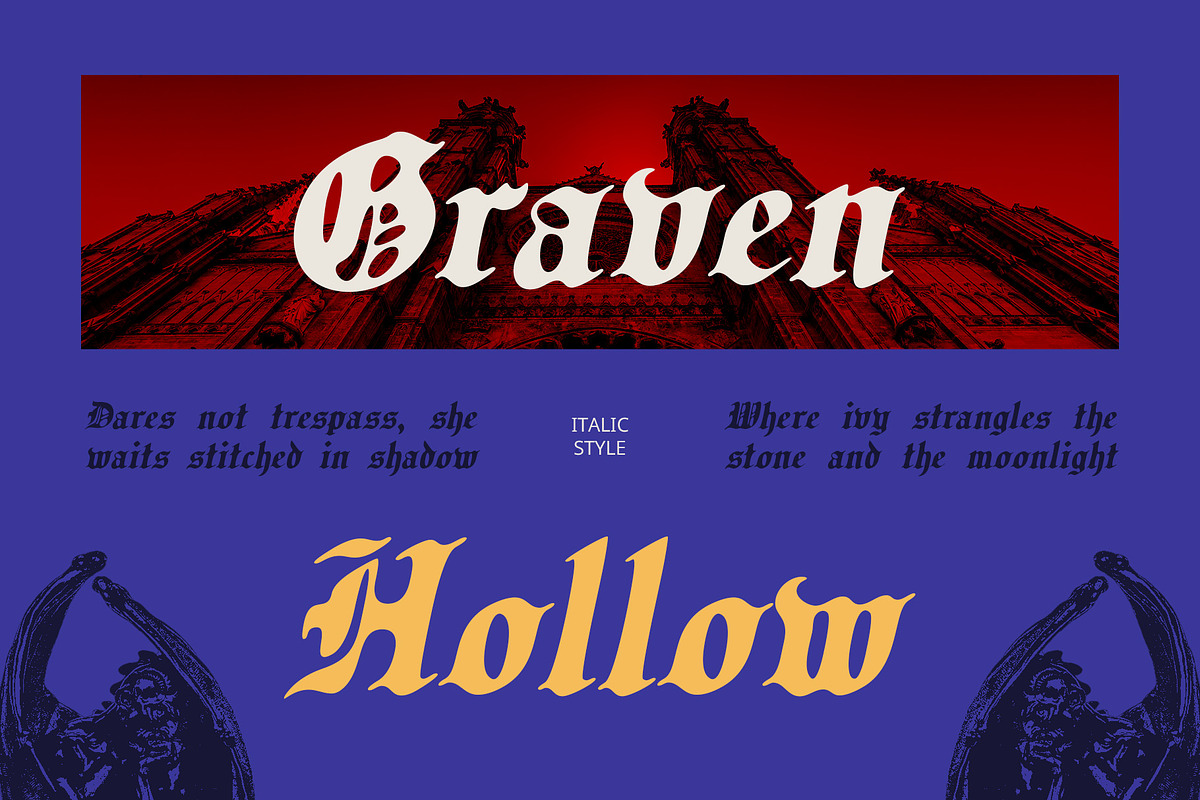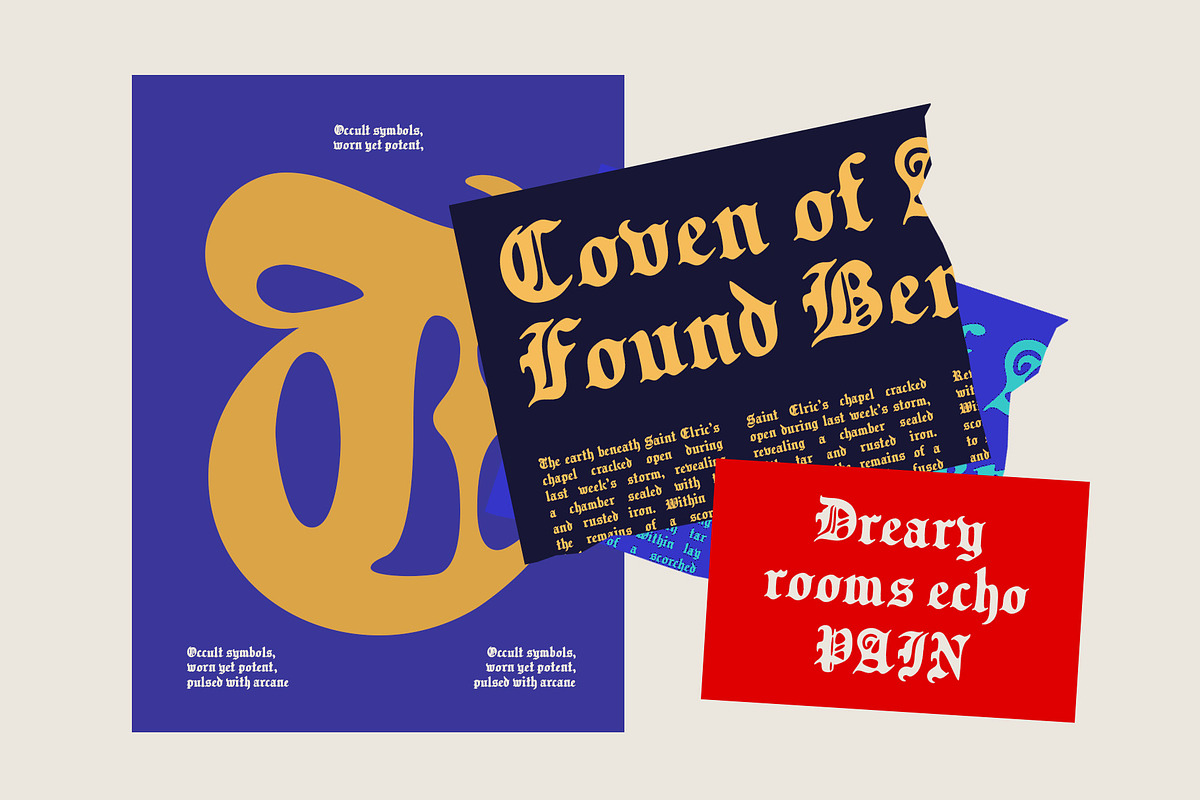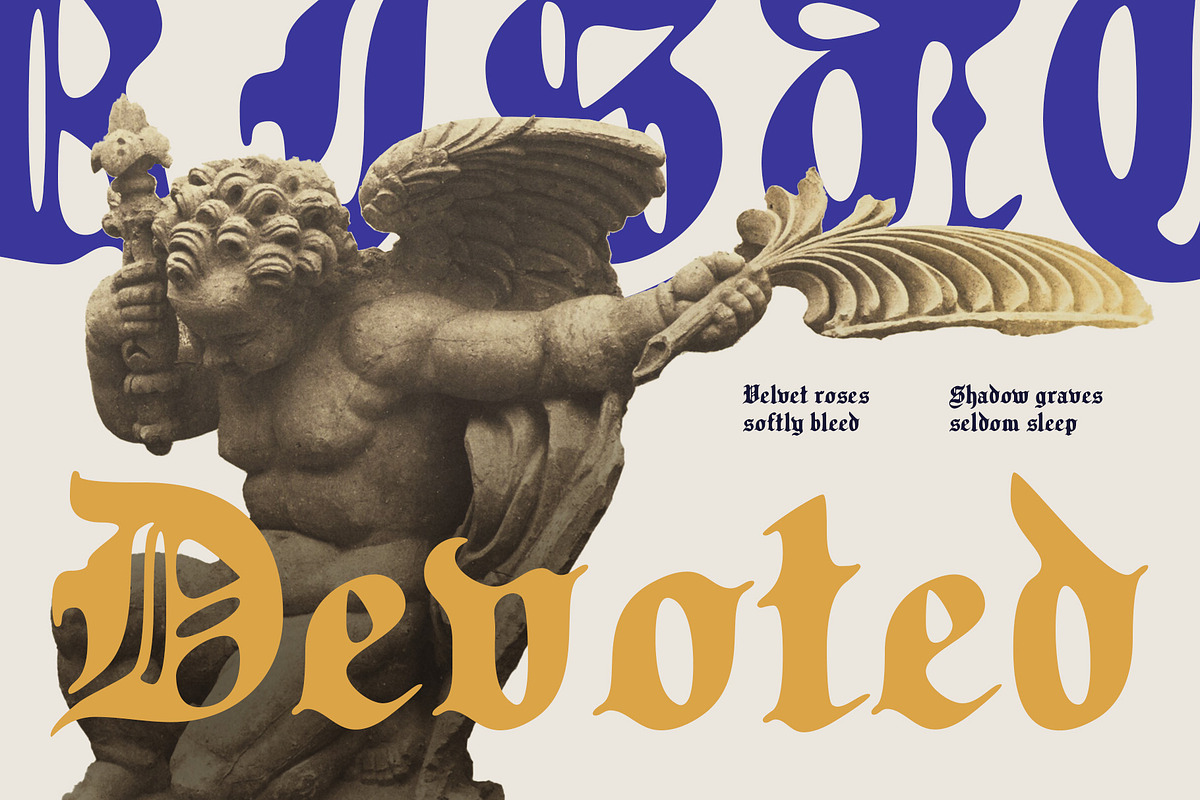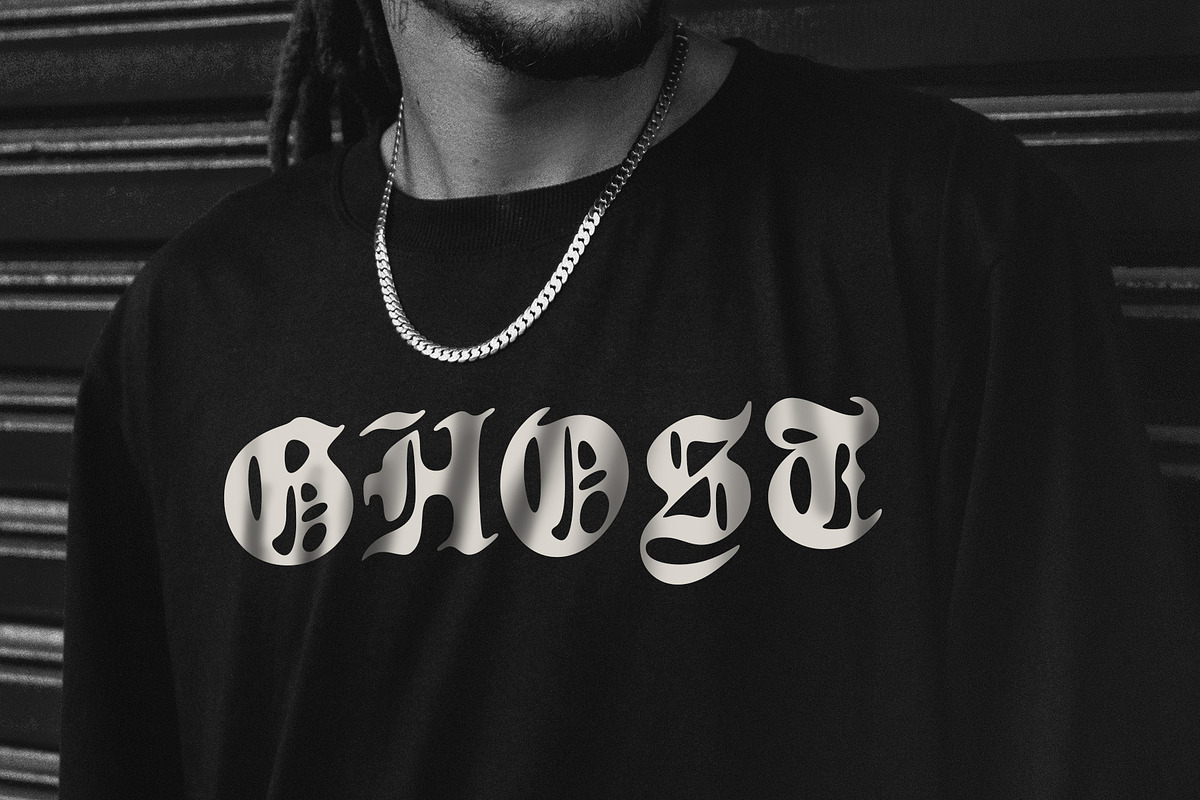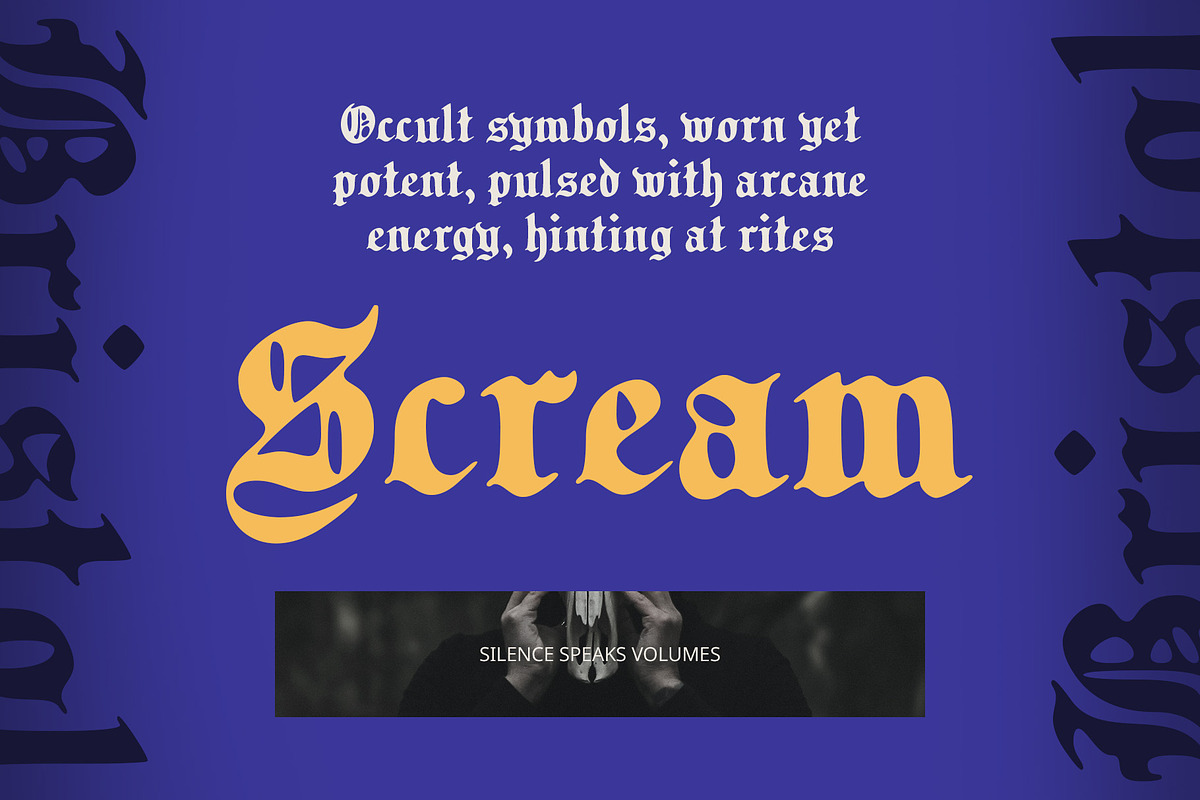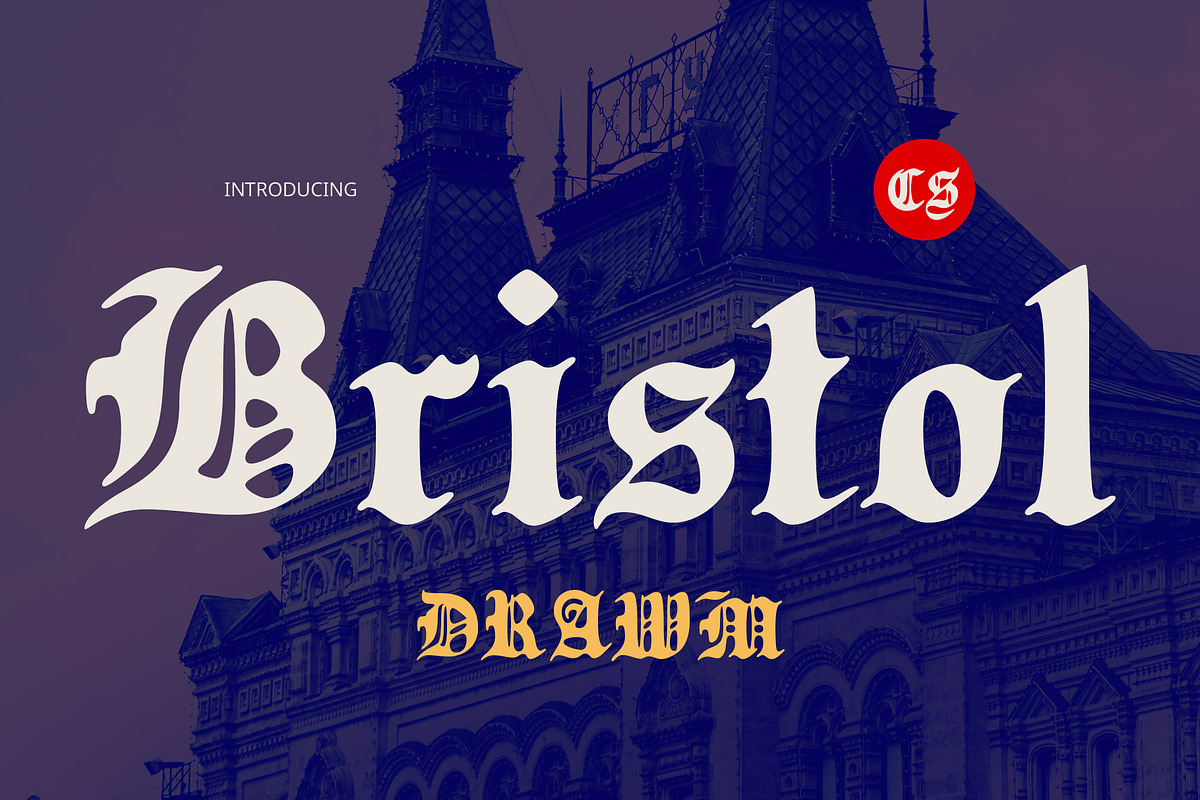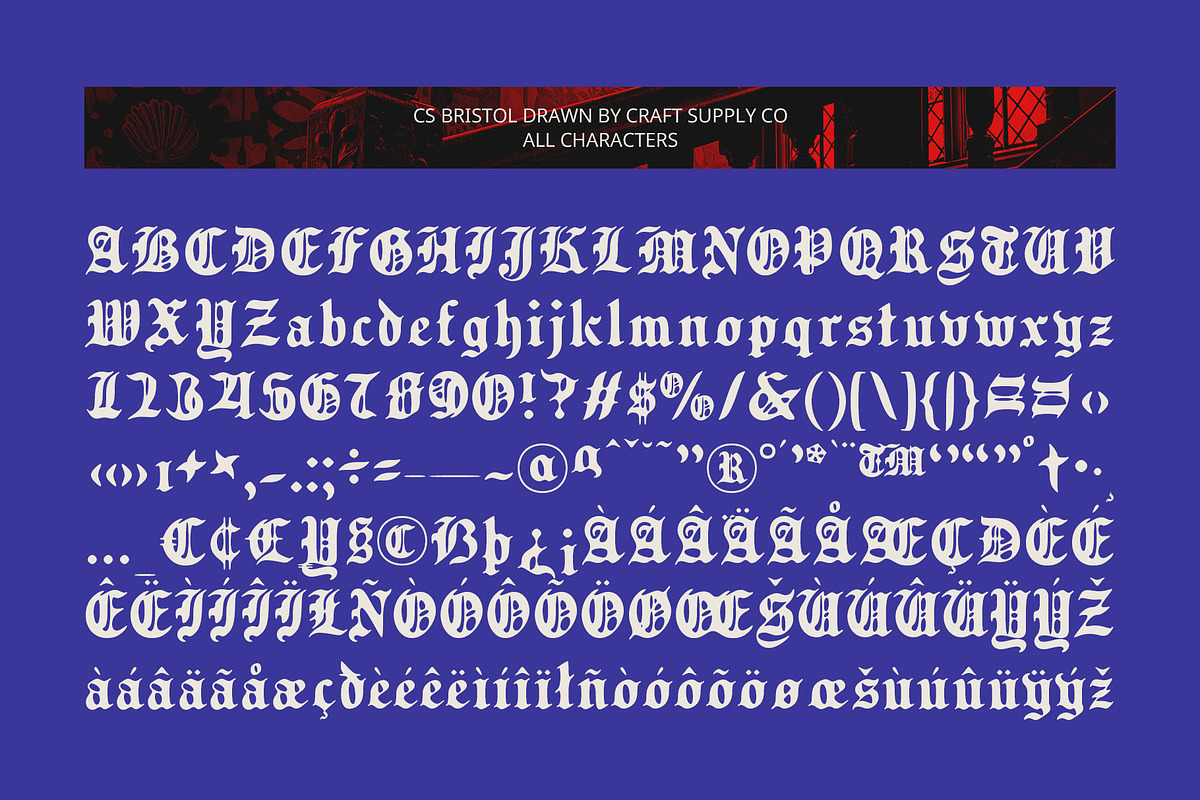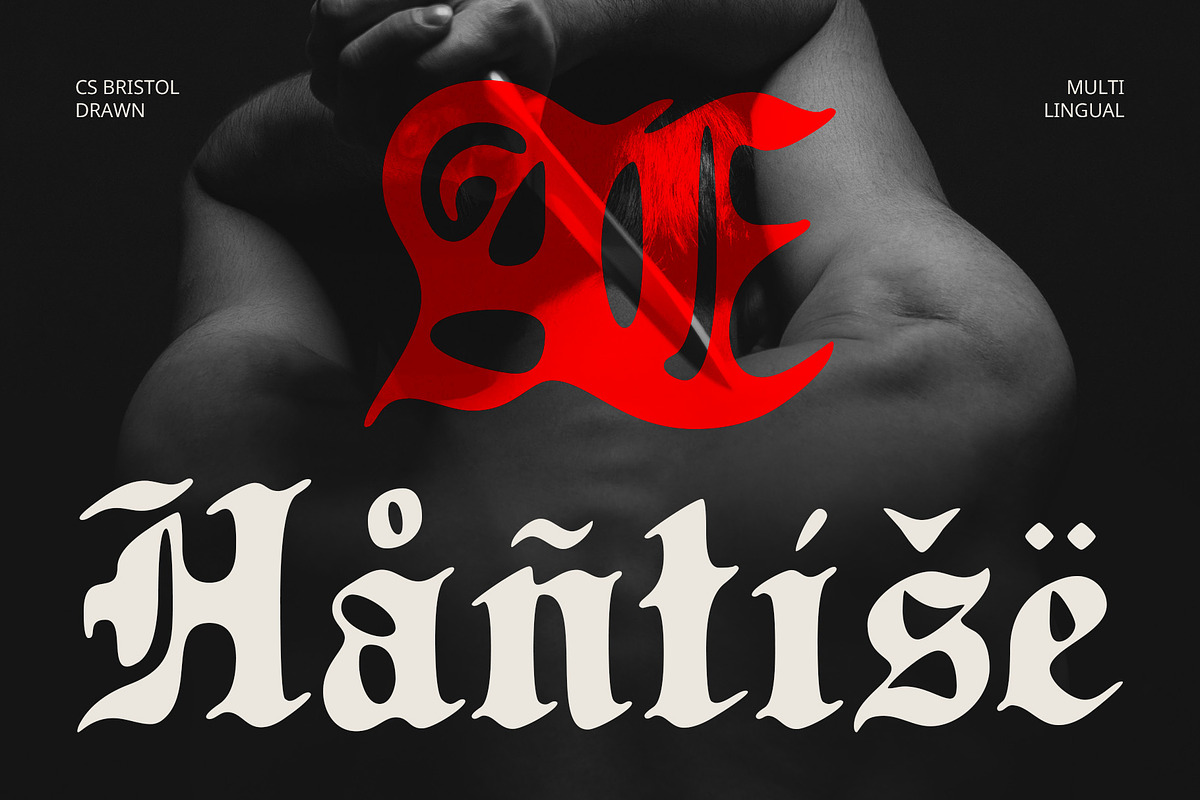
CS Bristol Drawn
CS Bristol Drawn – Timeless Gothic Elegance with a Handcrafted Edge
Classic Old English Structure with Decorative Detail CS Bristol Drawn is a display font inspired by the rich visual heritage of Old English typography. Its sharp, ornamental letterforms echo the grandeur of medieval manuscripts, showcasing traditional blackletter styling with intricate craftsmanship and dramatic flair.
Drawn Effect for a Raw Artistic Feel The added drawn effect introduces a handcrafted texture that enriches the font’s historical base with a sense of raw artistry. This rough yet deliberate touch provides an organic quality that softens the rigidity of Old English forms, making it feel both authentic and creatively reimagined.
Powerful, Dramatic, and Distinctive Style This font combines mysterious elegance with gothic aesthetics, striking the perfect balance between historical authority and artistic individuality. Its bold and highly stylized forms exude confidence, while the raw drawn finish adds a layer of contemporary grit. This combination makes the font ideal for projects that aim to feel authentic, dramatic, and visually rich.
Ideal for Thematic and Bold Visual Projects Ideal for gothic-themed graphics, metal band logos, historical editorials, book covers, or branding that demands presence, this classic font delivers timeless appeal with bold personality. Whether used for titles, posters, or packaging, it provides a visual impact that commands attention and leaves a lasting impression.